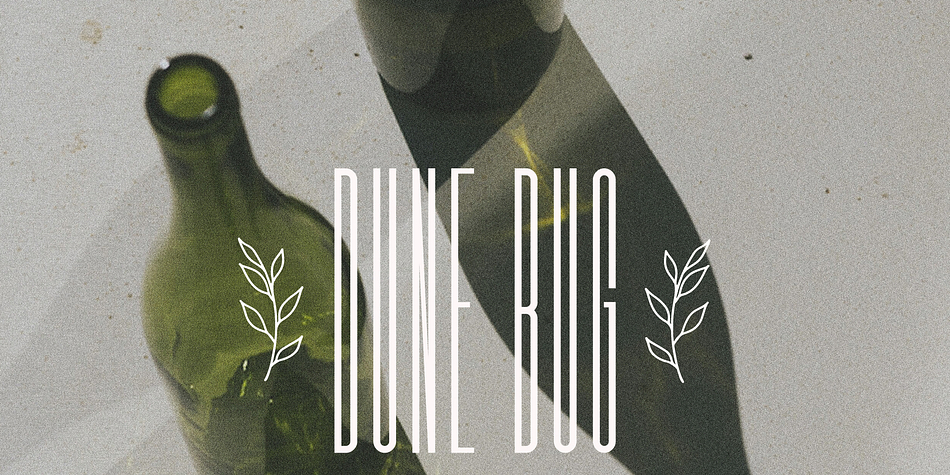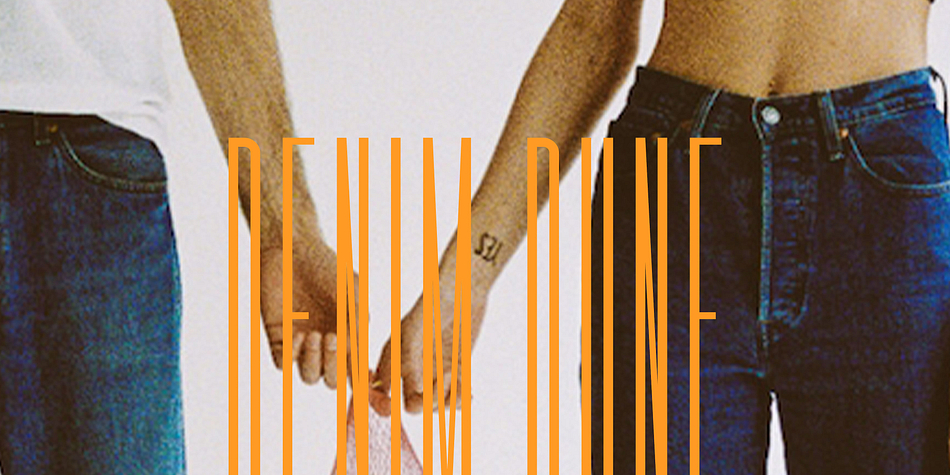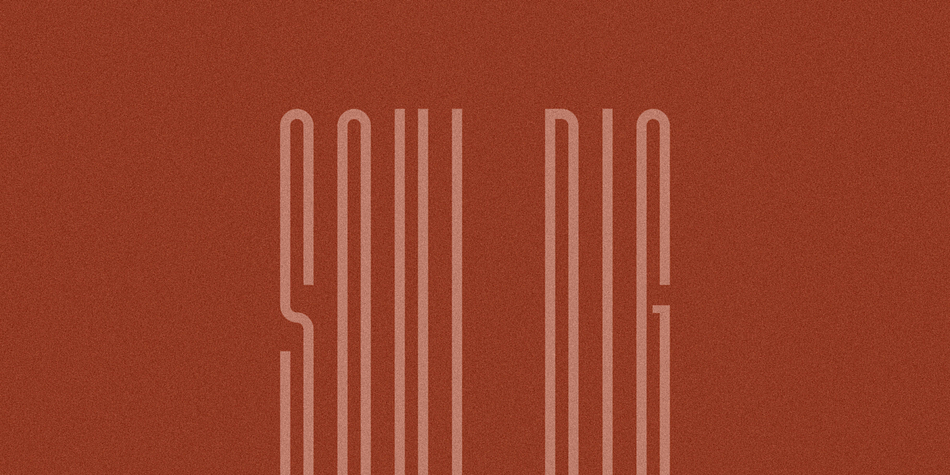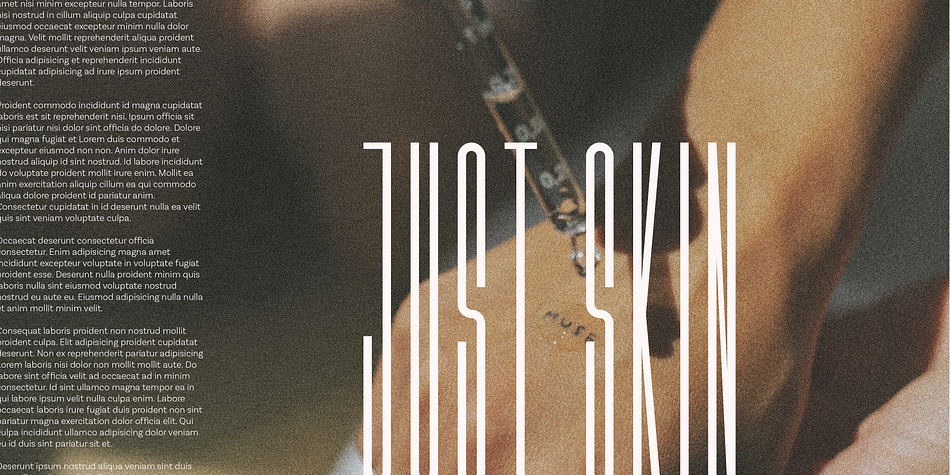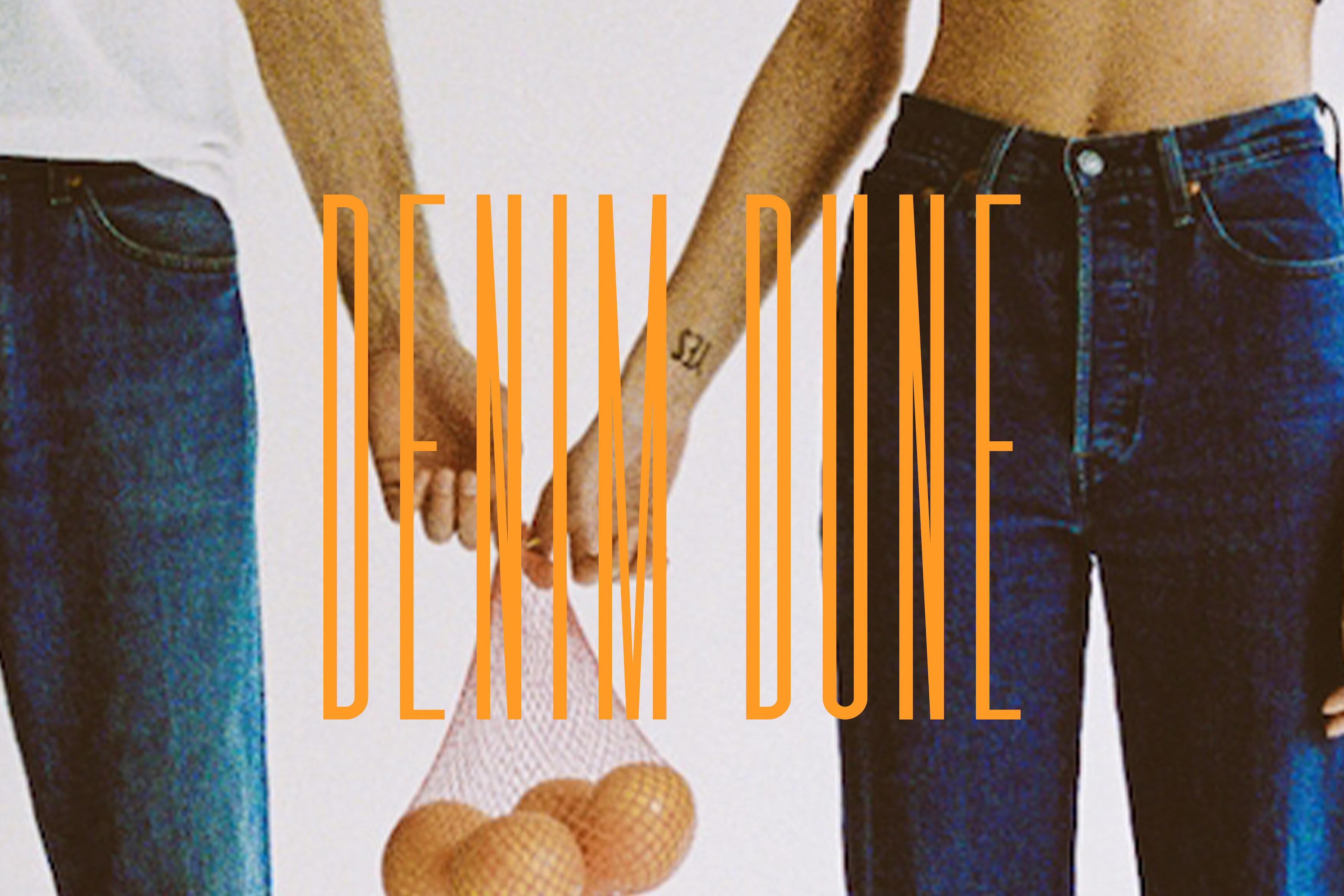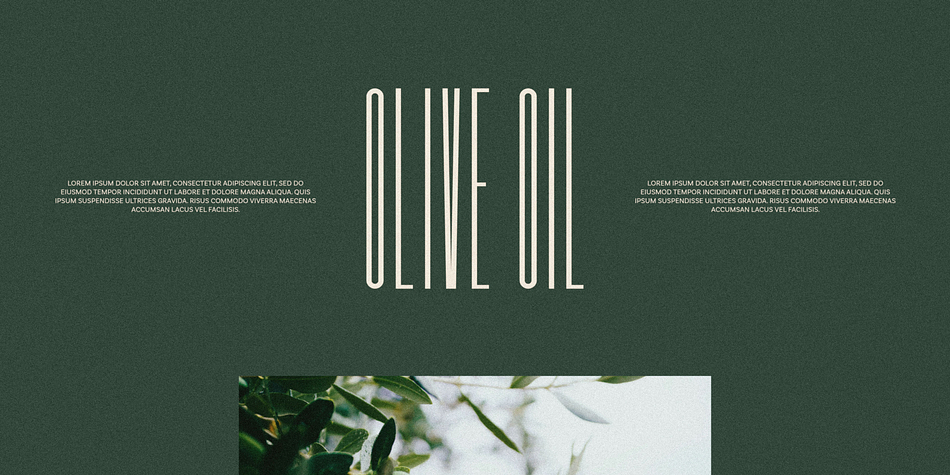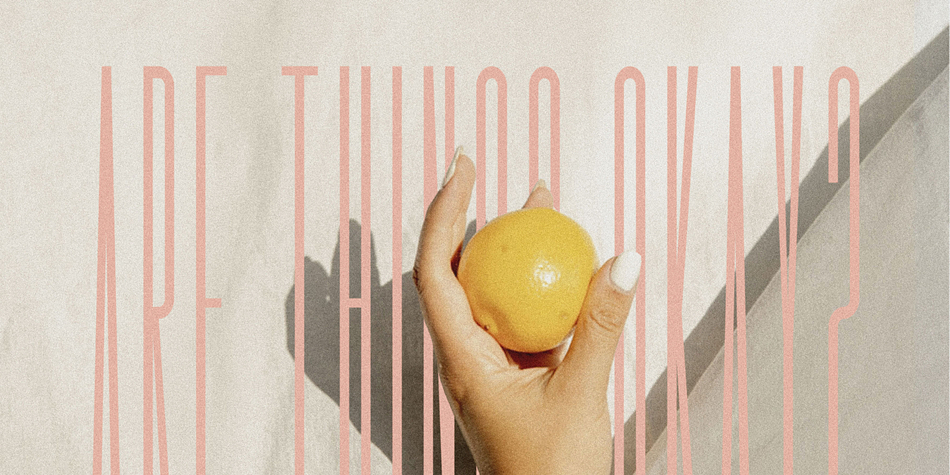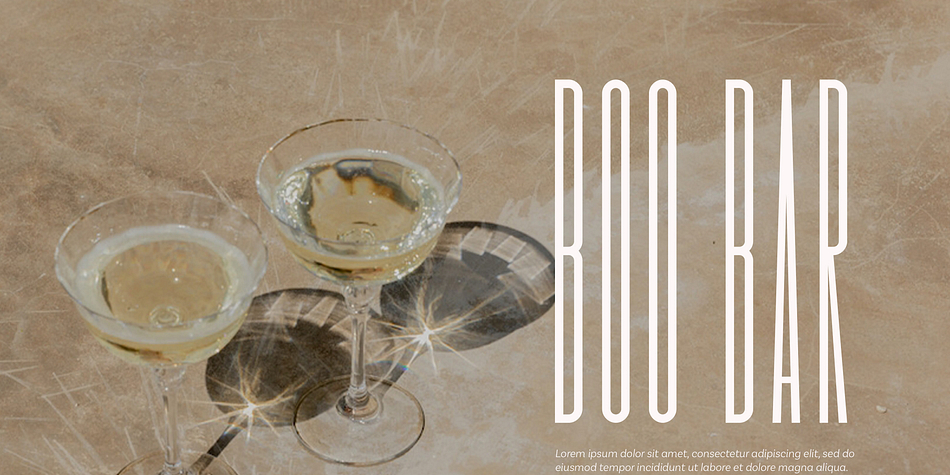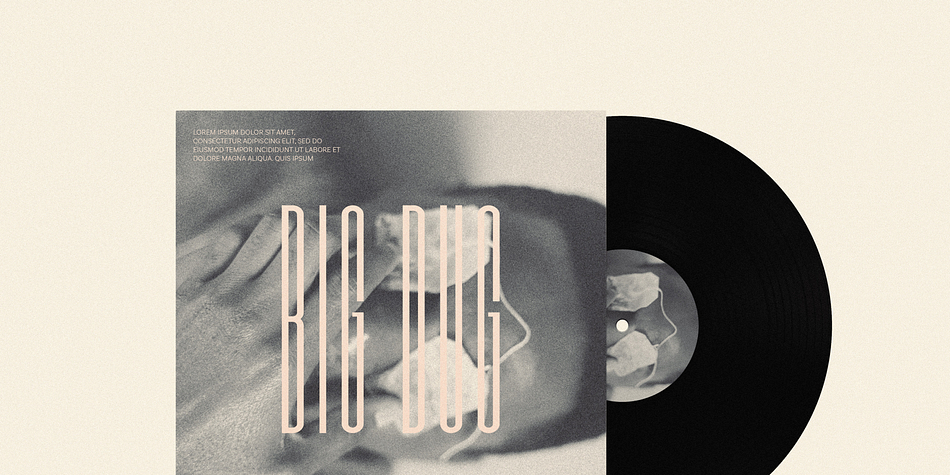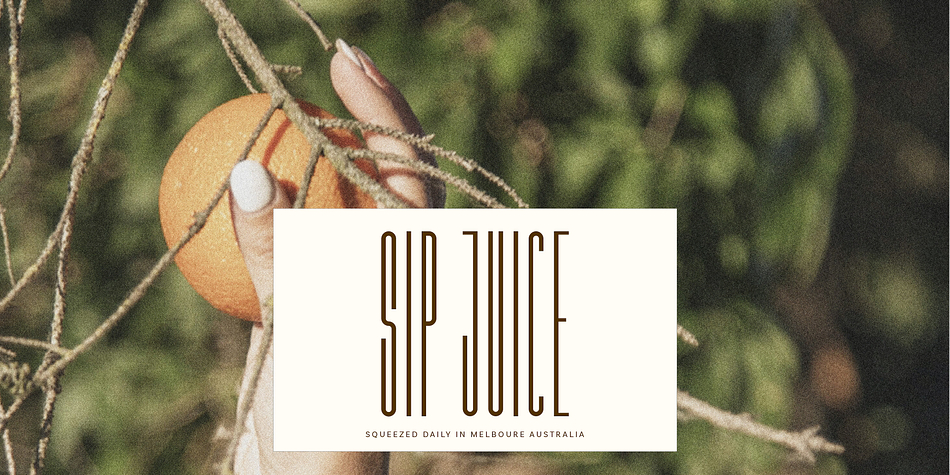
BIG BRIGHT
Big Bright is a display sans font family published by Loryn Ipsum.
Big Bright | a (very) tall sans serif
Meet Big Bright, a (very) tall sans serif inspired by some photo of a vintage mid-century furniture catalogue I saw on instagram. It’s perfect for logos, headings and posters. Big Bright has a vintage edge yet and modern feel and can sway from soft and gentle to striking and bold depending on how it’s styled. Hope you have big love for Big Bright
Perfect for; logos, business cards, headings, packaging, modern brands, magazine headings.